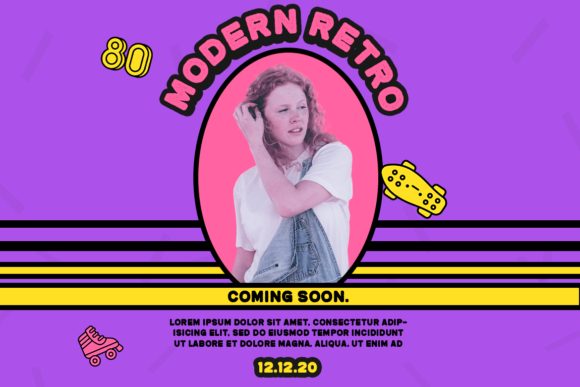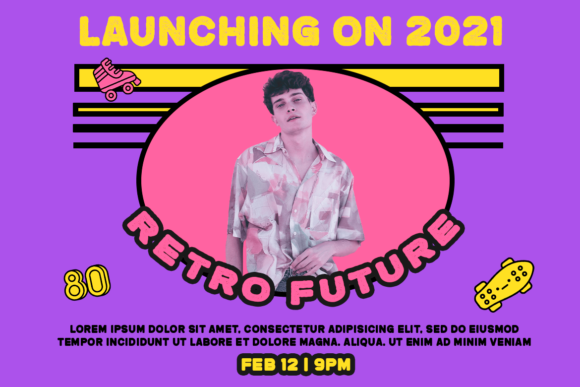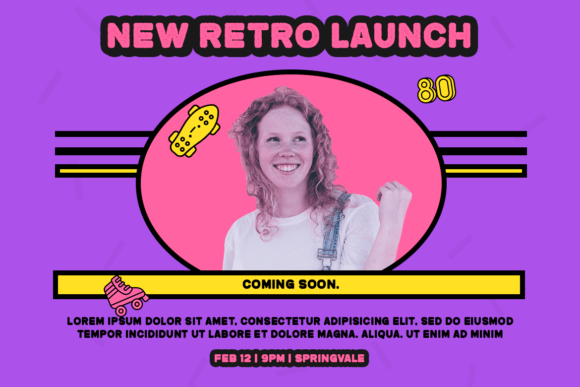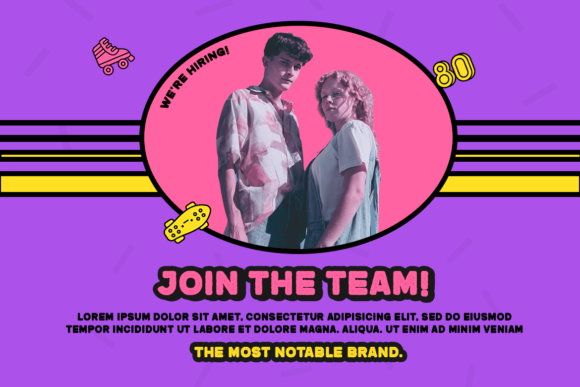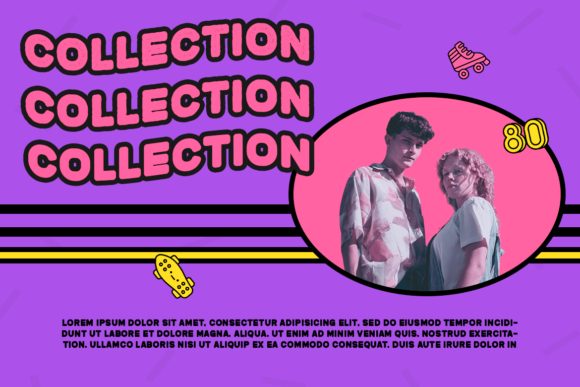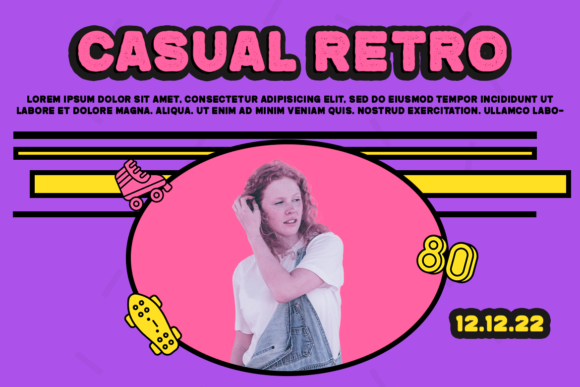
Introduction to Jreng Font Font
Fonts play a crucial role in design, and the Jreng Font font is a typeface that brings both character and versatility to any project. Whether you’re working on a branding project, a website, or a print design, the Jreng Font font offers a unique style that can elevate your work.
Jreng is a rough textured and thick lettered display font.
This font is ideal for writing web designs, business cards, or pretty much anything else that requires a bold touch .
Key Features of Jreng Font Font
Why Choose Jreng Font Font?
The Jreng Font font is more than just a typeface – it’s a design tool that helps you communicate your message with style and clarity. Its unique character set and versatile design make it suitable for a wide range of applications, from elegant invitations to bold headlines.
With its carefully crafted letterforms and balanced proportions, the Jreng Font font ensures readability and visual appeal across all mediums.
What makes Jreng Font font special?
The Jreng Font font stands out with its unique design, exceptional readability, and versatility across various design applications.